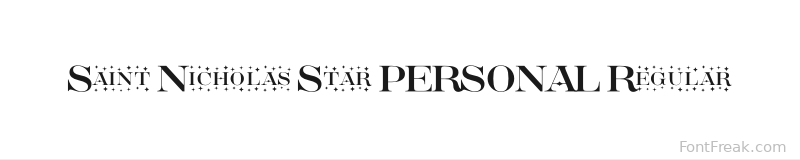
Saint Nicholas PERSONAL Regular
The Saint Nicholas PERSONAL Regular font by Mans Greback is a captivating display typeface that combines elegance and charm. This serif font features a unique blend of traditional and contemporary design elements, making it a versatile choice for various creative projects. The stroke weight exhibits a pleasing balance between bold and delicate, while the contrast between thick and thin lines adds visual interest. The generous spacing between letters enhances readability, making it suitable for both titles and body text. Decorative elements, such as subtle serifs, contribute to its distinctive flair, evoking a sense of warmth and familiarity.
Ideal use cases for the Saint Nicholas PERSONAL Regular font include wedding invitations, where its elegant style can beautifully convey the significance of the occasion. It also works wonderfully for restaurant menus, providing a touch of sophistication that complements culinary artistry. Graphic designers will find this font perfect for creating eye-catching movie posters, where its bold presence can attract attention and convey themes effectively. Additionally, small business owners can utilize it for branding materials, ensuring their logos and promotional content stand out in a crowded marketplace.
Targeting graphic designers, small business owners, and content creators, the Saint Nicholas PERSONAL Regular font offers a unique aesthetic that appeals to a broad audience. Its ability to blend seamlessly into various design contexts makes it a valuable addition to any creative toolkit.
What truly sets the Saint Nicholas PERSONAL Regular font apart is its ability to evoke emotion while maintaining clarity and sophistication. This font's distinct personality makes it memorable, ensuring that any project utilizing it will leave a lasting impression. For those seeking a font that combines elegance with versatility, the Saint Nicholas PERSONAL Regular font free download is an excellent choice.